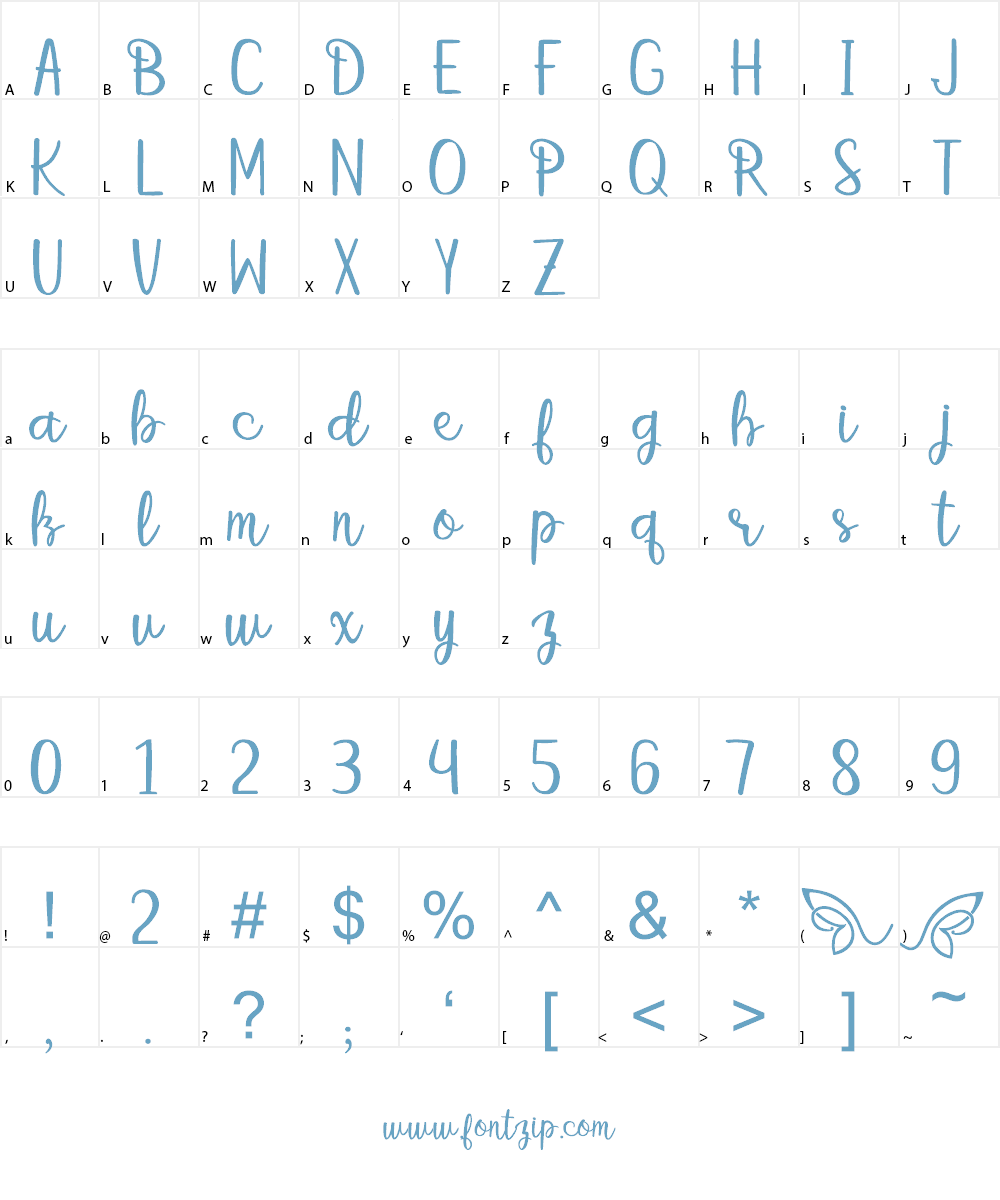
This font is partial.
For partial version use ( and ) before and after a letter to display the lowercase starting and lowercase ending, use _ to display tt ligature. Example: (be_erfly)
The complete version include:
- Alternates by using Open Type Features or PUA for r s v and w.
- Ligatures by using Open Type Features or PUA for aa cc dd ee ff gg ll mm nn oo pp rr ss tt and zz.
- 4 butterfly wings for startings and endings by using Open Type Features or PUA.